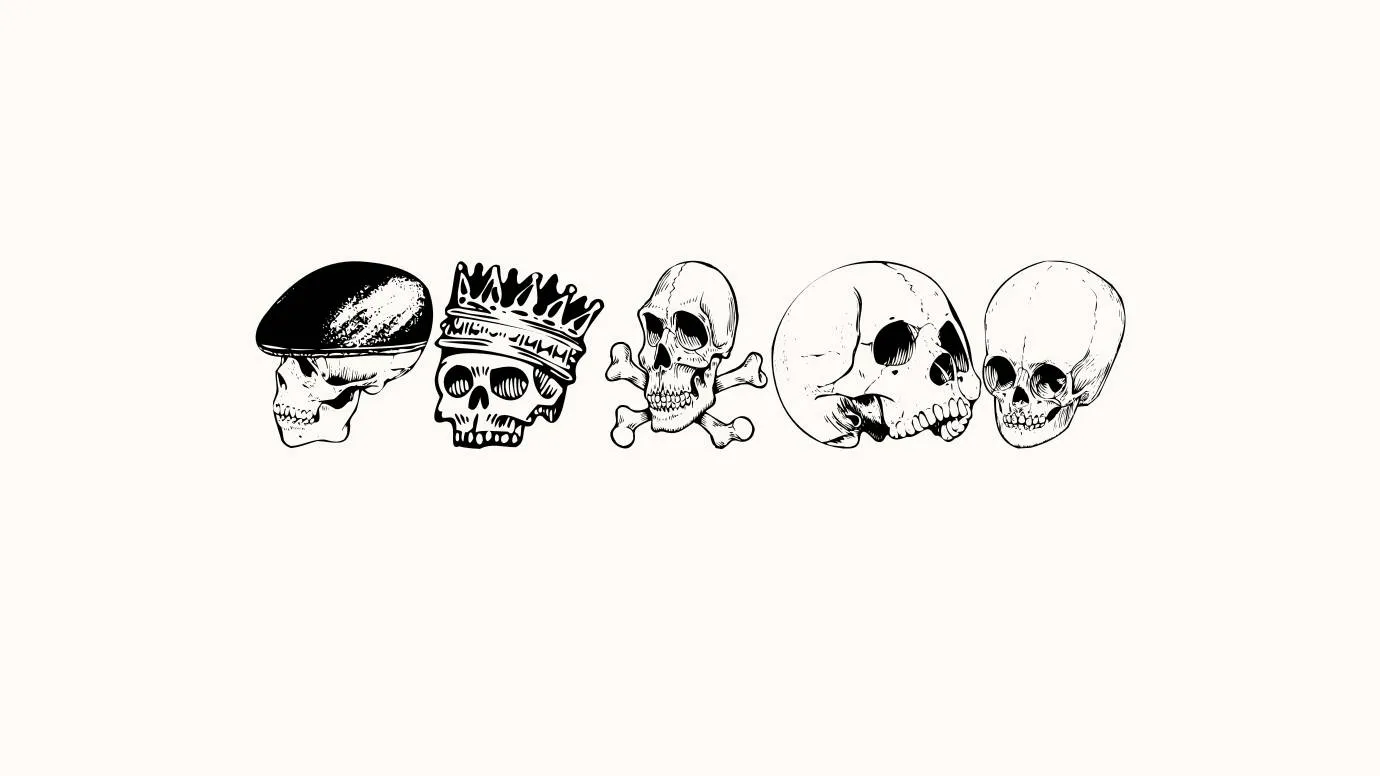
Skull Font Free Download
Skull Font Family is a horror display-type texture. Mainly this fantastic typography was developed and published by Billy Argel. This tremendous typeface lies in the classification of the display category of fonts.
Skull Font